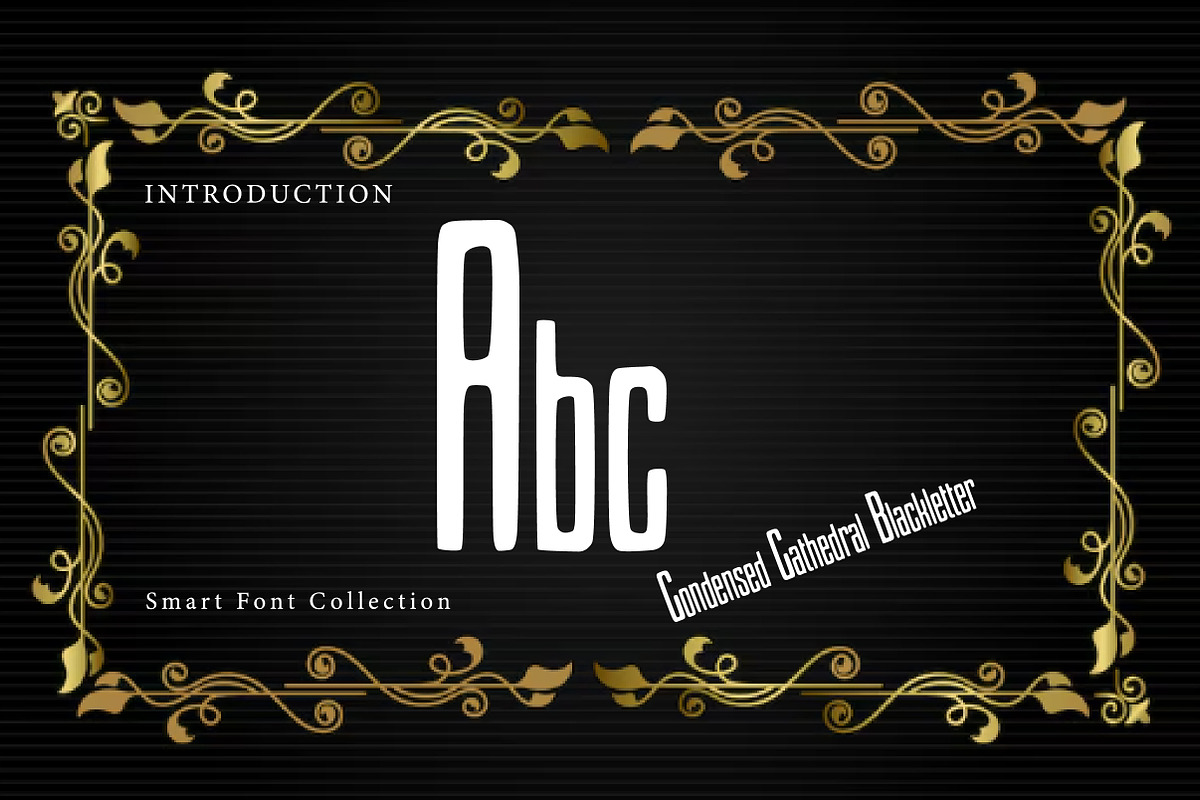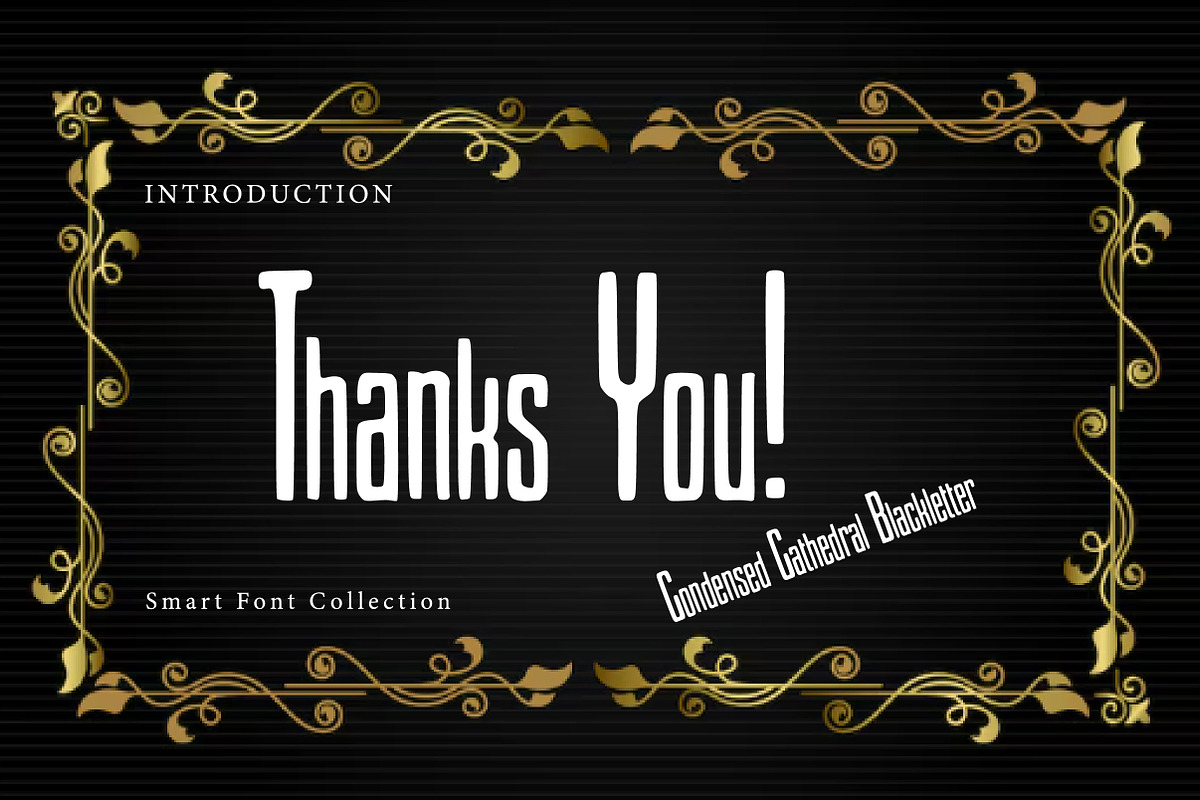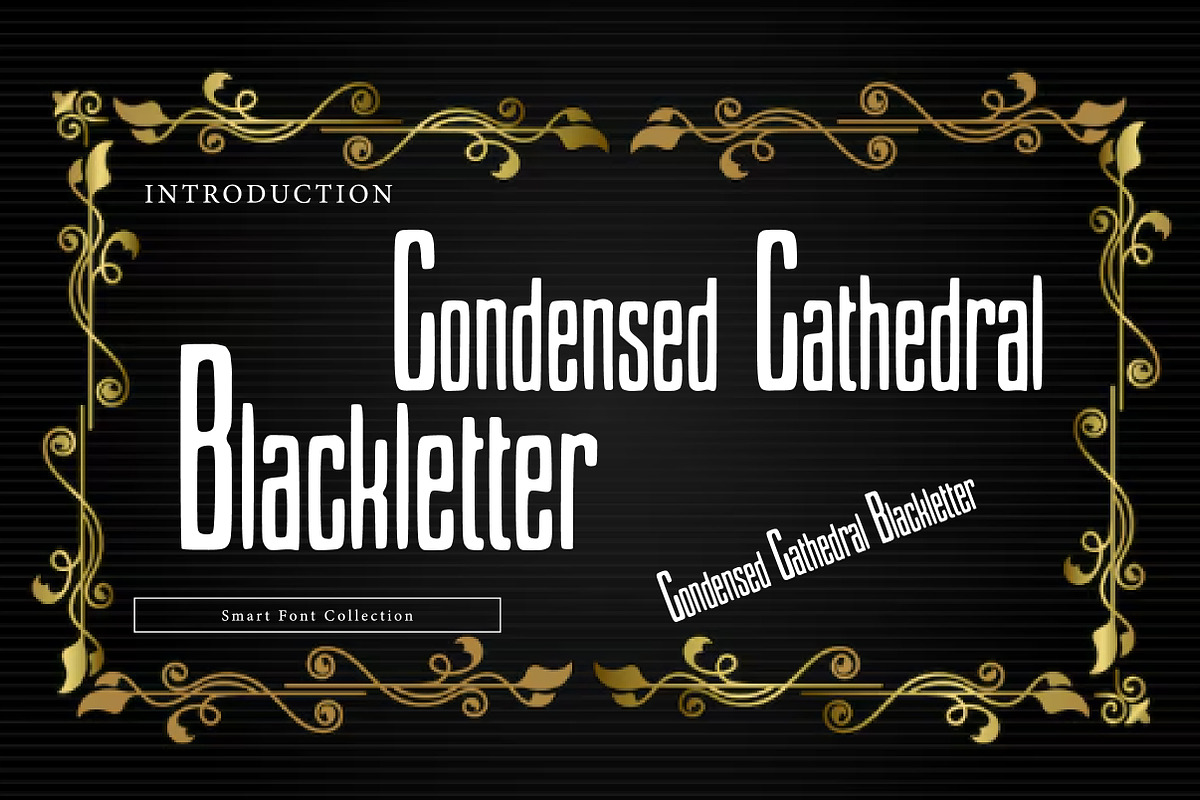
Condensed Cathedral Blackletter
Condensed Cathedral Blackletter is a tall and narrow display typeface inspired by gothic cathedral architecture and traditional blackletter calligraphy. Its condensed proportions, sharp vertical strokes, and clean structure create a powerful, solemn, and authoritative presence. This font is ideal for headlines, posters, logos, book covers, editorial layouts, and designs that require a dramatic, medieval, or ecclesiastical atmosphere with strong visual impact.